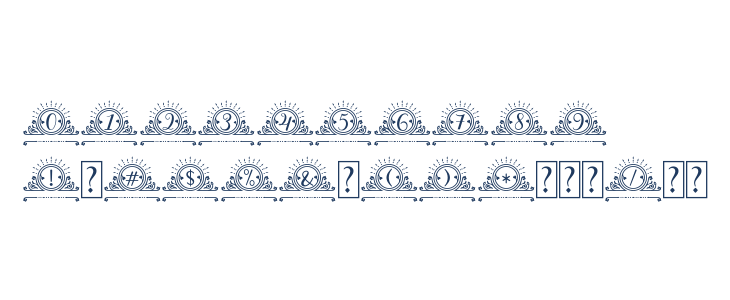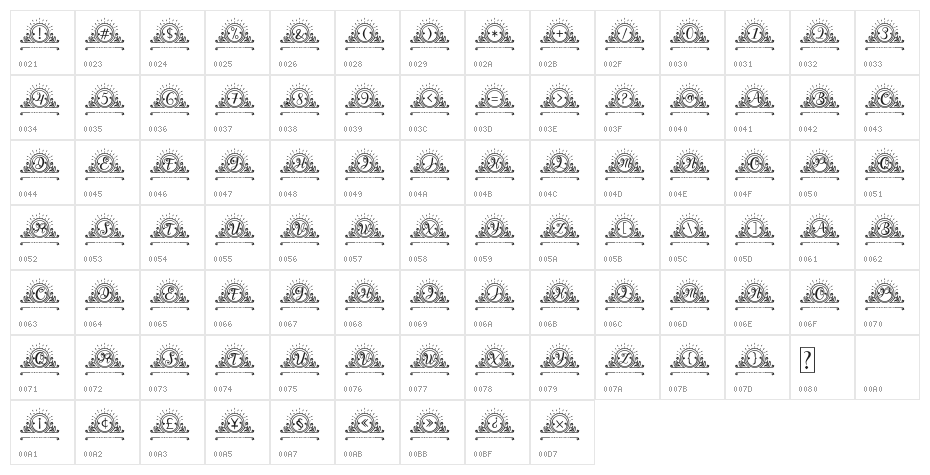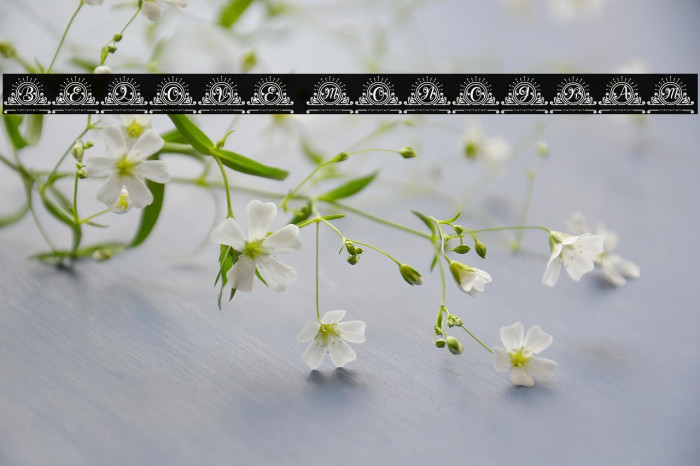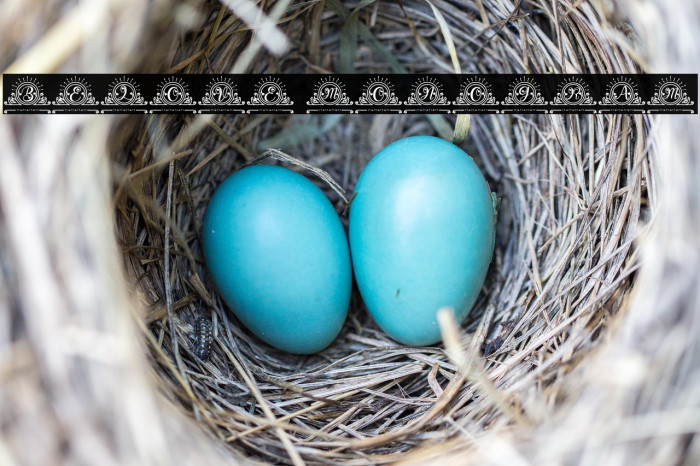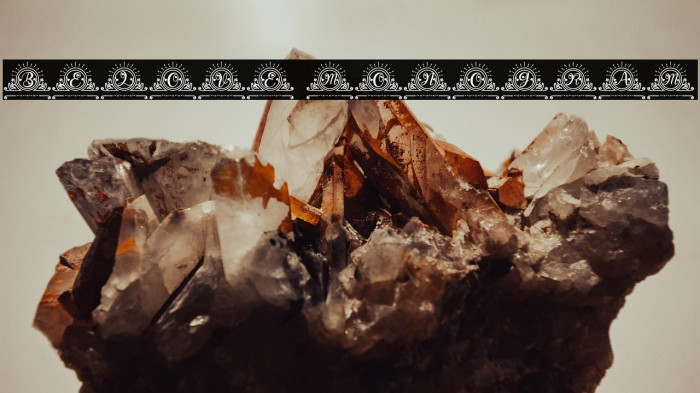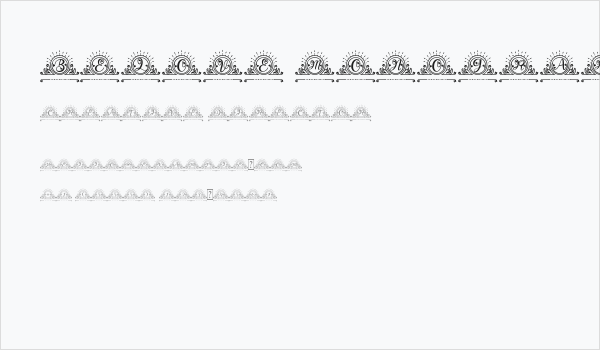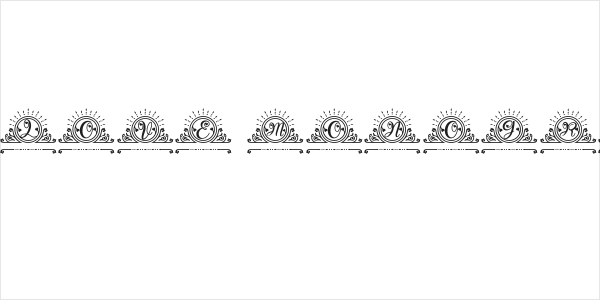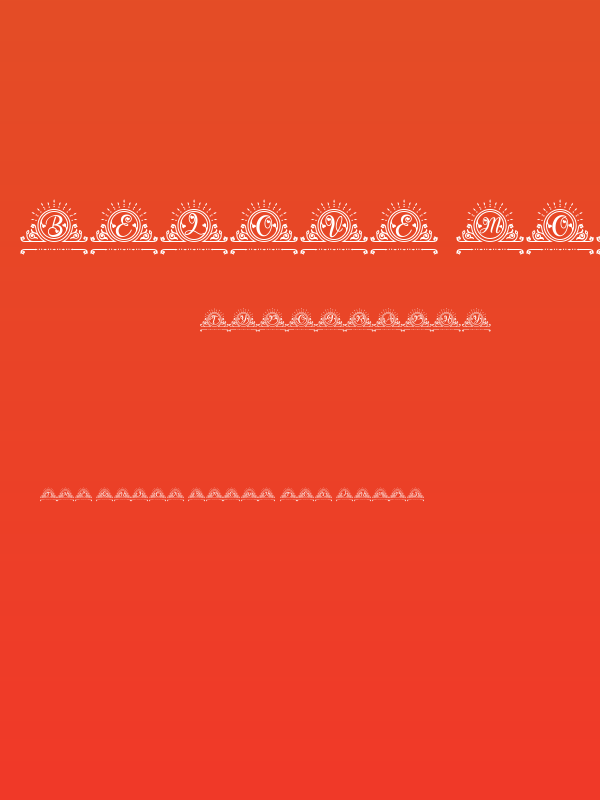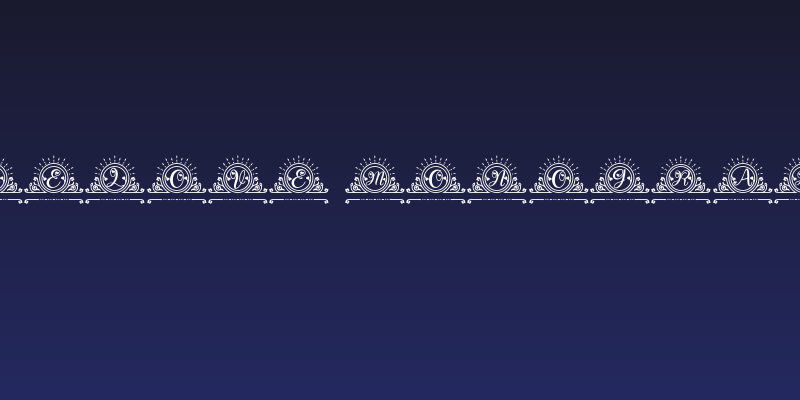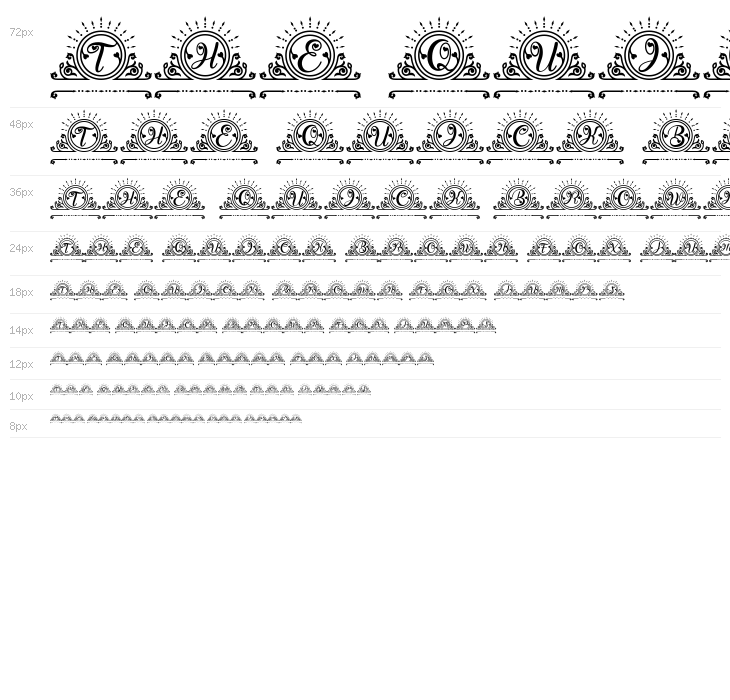
Belove Monogram Font
Belove Monogram Description
This font features an ornate and decorative style, characterized by intricate embellishments surrounding each character. The letters are encased in circular frames with sunburst patterns, giving a regal and vintage aesthetic. The design is highly detailed, with flourishes and ornamental elements that create a sense of elegance and sophistication. Each character is distinct, yet they all share a cohesive visual theme that makes the font suitable for formal and luxurious applications.
| Overall Style | Vintage, Decorative |
| Proposed Projects | Ideal for wedding invitations, luxury branding, monogram designs, and decorative headings. |